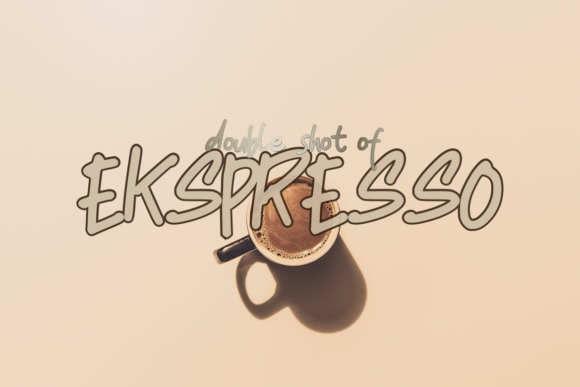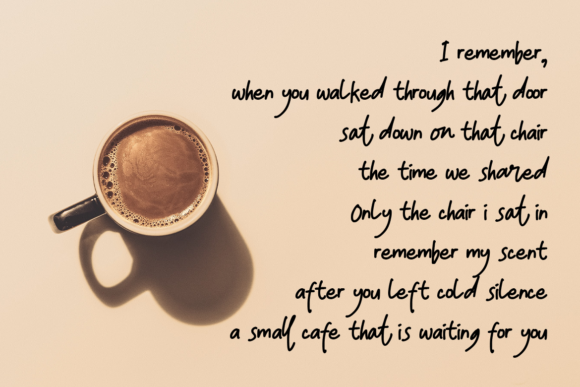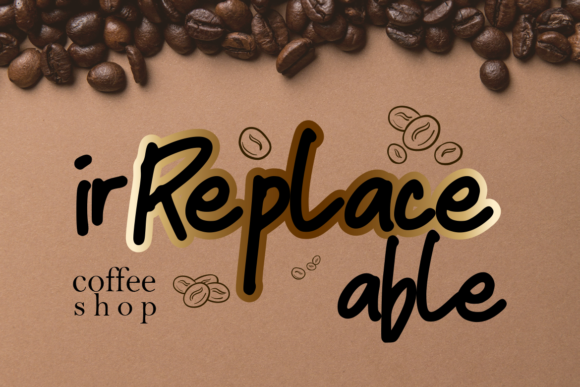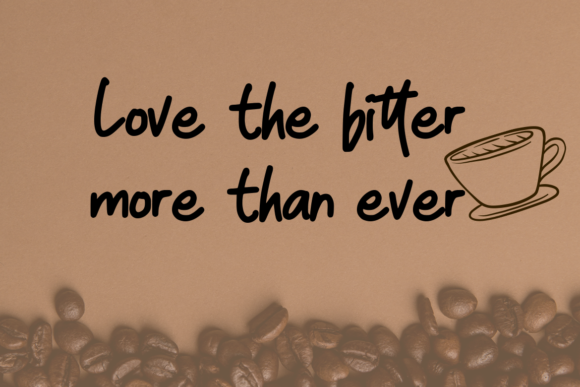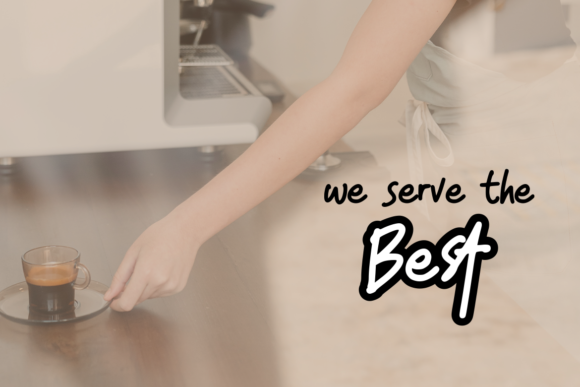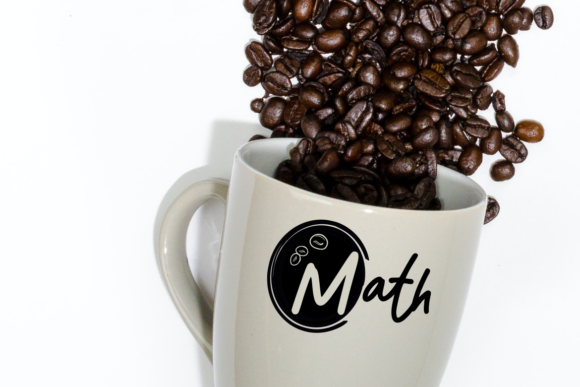
Coffee Break Font: The Perfect Companion for Creative Projects
Are you a designer, crafter, or DIY enthusiast looking for a font that can add a personal touch to your creative projects? Look no further than the Coffee Break Font! This simple, laid-back, and friendly handwritten font is perfect for turning any creative idea into a true piece of art.
What is Coffee Break Font?
Coffee Break Font is a beautiful, handwritten font that is designed to bring a sense of warmth and friendliness to your designs. Its simple and laid-back style makes it perfect for a wide range of creative projects, from Instagram posts and stories to DIY crafts and calligraphy scripts.
Key Features of Coffee Break Font
- Handwritten style: Coffee Break Font has a beautiful, handwritten style that adds a personal touch to any design.
- Simple and laid-back: The font’s simple and laid-back style makes it perfect for a wide range of creative projects.
- Easy to read: The font is easy to read, making it perfect for use in body text or headings.
- Versatile: Coffee Break Font can be used for a wide range of creative projects, from Instagram posts and stories to DIY crafts and calligraphy scripts.
Uses for Coffee Break Font
Coffee Break Font is a versatile font that can be used for a wide range of creative projects. Here are some ideas to get you started:
- Instagram posts and stories: Add a personal touch to your Instagram posts and stories with Coffee Break Font.
- DIY crafts: Use Coffee Break Font to add a personal touch to your DIY crafts, such as scrapbooking, card making, and journaling.
- Calligraphy scripts: Coffee Break Font is perfect for calligraphy scripts, adding a touch of elegance and sophistication to your designs.
- Branding and marketing materials: Use Coffee Break Font to add a personal touch to your branding and marketing materials, such as business cards, brochures, and flyers.
Tips for Using Coffee Break Font
Here are some tips for using Coffee Break Font in your creative projects:
- Use it with a personal touch: Coffee Break Font is all about adding a personal touch to your designs. Use it to create unique and personalized designs.
- Experiment with different colors: Coffee Break Font looks great in a variety of colors. Experiment with different colors to find the perfect look for your design.
- Pair it with other fonts: Coffee Break Font can be paired with other fonts to create a unique and interesting look.
Why Choose Coffee Break Font?
There are many reasons why you should choose Coffee Break Font for your creative projects. Here are a few:
- Unique and personalized: Coffee Break Font adds a unique and personalized touch to your designs.
Coffee Break Font is a beautiful, handwritten font that is perfect for adding a personal touch to your creative projects. Its simple and laid-back style makes it perfect for a wide range of creative projects, from Instagram posts and stories to DIY crafts and calligraphy scripts. With its ease of use, affordability, and unique style, Coffee Break Font is a great choice for designers, crafters, and DIY enthusiasts.